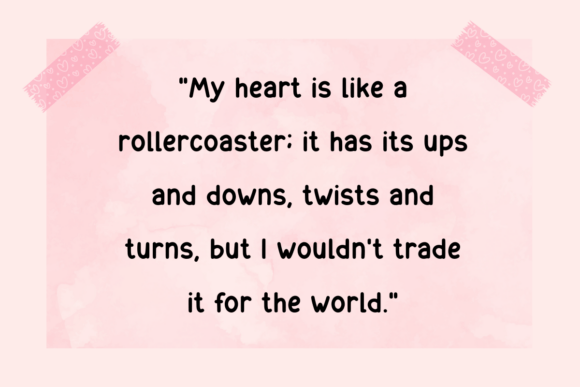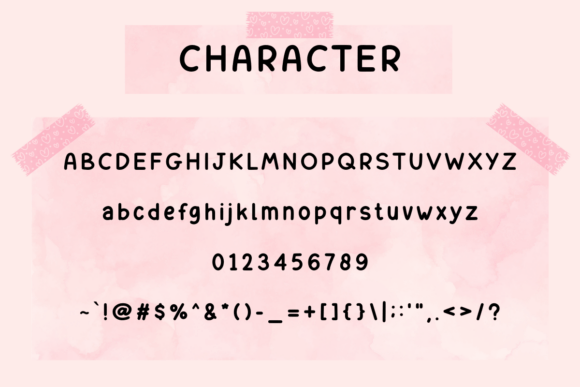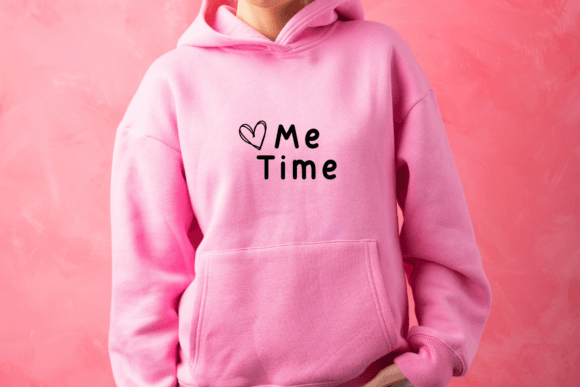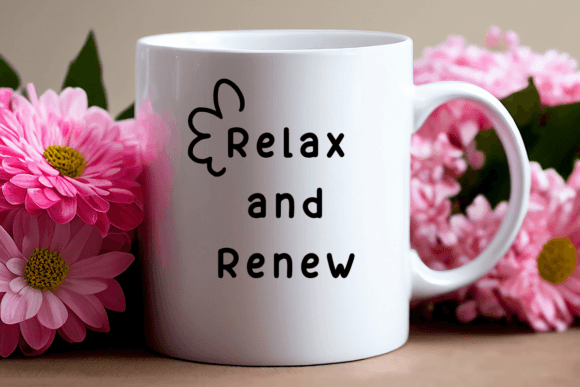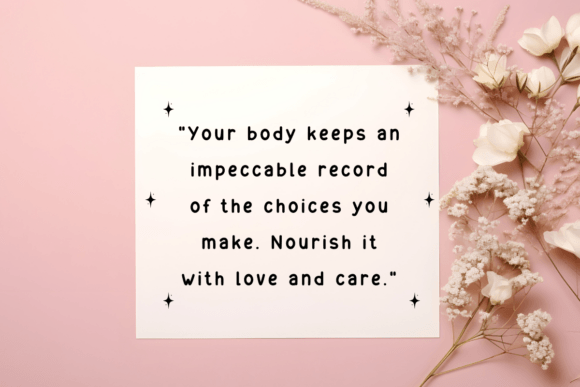
Introducing Funny Hearts Font: The Perfect Blend of Style and Friendliness
Are you tired of using the same old fonts for your designs? Look no further! Funny Hearts Font is a game-changer for designers and crafters alike. This clean and modern sans serif font is designed to add a friendly feel to any project, making it perfect for logos, posters, social media designs, and more.
What Makes Funny Hearts Font So Special?
So, what sets Funny Hearts Font apart from other fonts out there? For starters, its smooth, simple letters make it incredibly easy to read. This is especially important for designers who want to ensure that their message is conveyed clearly and effectively. Whether you’re designing a logo for a new business or creating a poster for a social media campaign, Funny Hearts Font is the perfect choice.
Another key feature of Funny Hearts Font is its friendly feel. This font is designed to be approachable and welcoming, making it perfect for brands that want to convey a sense of warmth and approachability. With Funny Hearts Font, you can add a stylish and welcoming touch to any project, making it perfect for a wide range of design applications.
The Benefits of Using Funny Hearts Font
So, what are the benefits of using Funny Hearts Font for your designs? Here are just a few:
- Easily Readable: As mentioned earlier, Funny Hearts Font is incredibly easy to read, making it perfect for designs that require a clear and concise message.
- Versatile: Funny Hearts Font is a versatile font that can be used for a wide range of design applications, from logos and posters to social media designs and more.
- Stylish: With its smooth, simple letters and friendly feel, Funny Hearts Font is a stylish addition to any design project.
- Modern: Funny Hearts Font is a modern sans serif font that is perfect for designers who want to create a fresh and contemporary look.
How to Use Funny Hearts Font in Your Designs
Using Funny Hearts Font in your designs is easy! Here are a few tips to get you started:
- Pair it with Other Fonts: Funny Hearts Font pairs well with other fonts, making it easy to create a unique and visually appealing design.
- Experiment with Different Sizes: Funny Hearts Font looks great in a variety of sizes, from large headings to smaller body text.
- Add Some Color: Funny Hearts Font looks great in a range of colors, so don’t be afraid to experiment and find the perfect hue for your design.
Who Can Benefit from Using Funny Hearts Font?
Funny Hearts Font is perfect for a wide range of designers and crafters, including:
- Graphic Designers: Funny Hearts Font is a great addition to any graphic designer’s toolkit, perfect for creating logos, posters, and more.
- Social Media Managers: Funny Hearts Font is perfect for social media managers who want to create visually appealing designs that stand out on social media.
- Crafters: Funny Hearts Font is also perfect for crafters who want to add a personal touch to their projects, from handmade cards to DIY crafts.
In conclusion, Funny Hearts Font is a clean and modern sans serif font that is perfect for designers and crafters alike. With its smooth, simple letters and friendly feel, it’s the perfect addition to any design project. Whether you’re creating a logo, poster, or social media design, Funny Hearts Font is sure to add a stylish and welcoming touch. So why not give it a try and see the difference it can make in your designs?